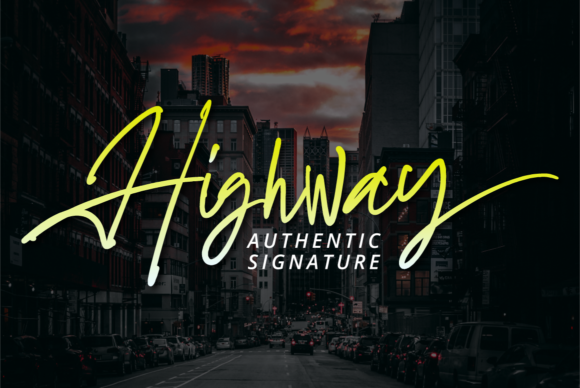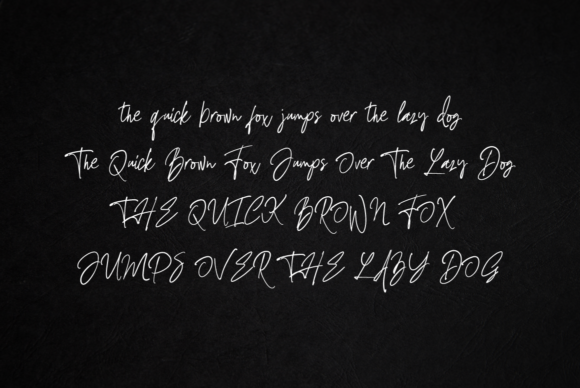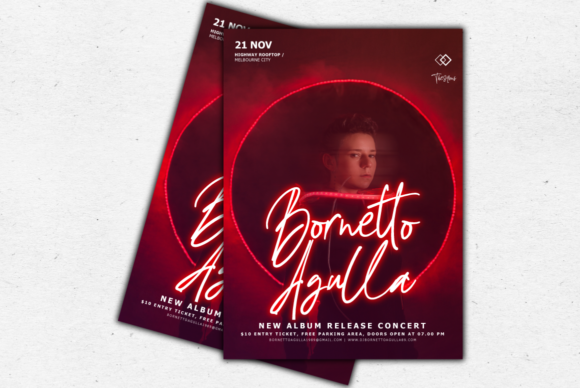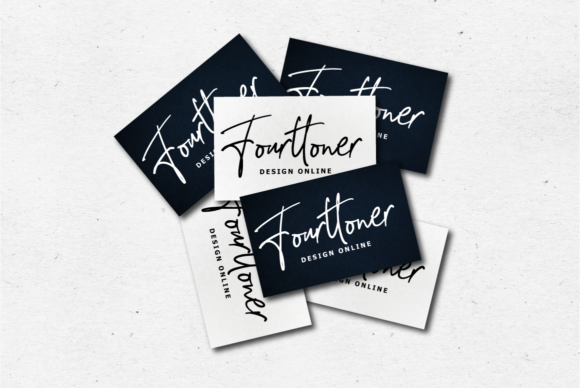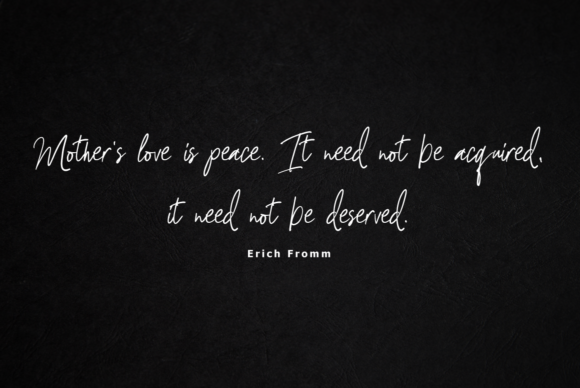
About Highway Signature Font
Highway Signature is an unique and elegant handwritten font. Incredibly versatile, this font fits a wide pool of designs, elevating them to the highest levels. Add this font to your favorite creative ideas and notice how it makes them come alive!